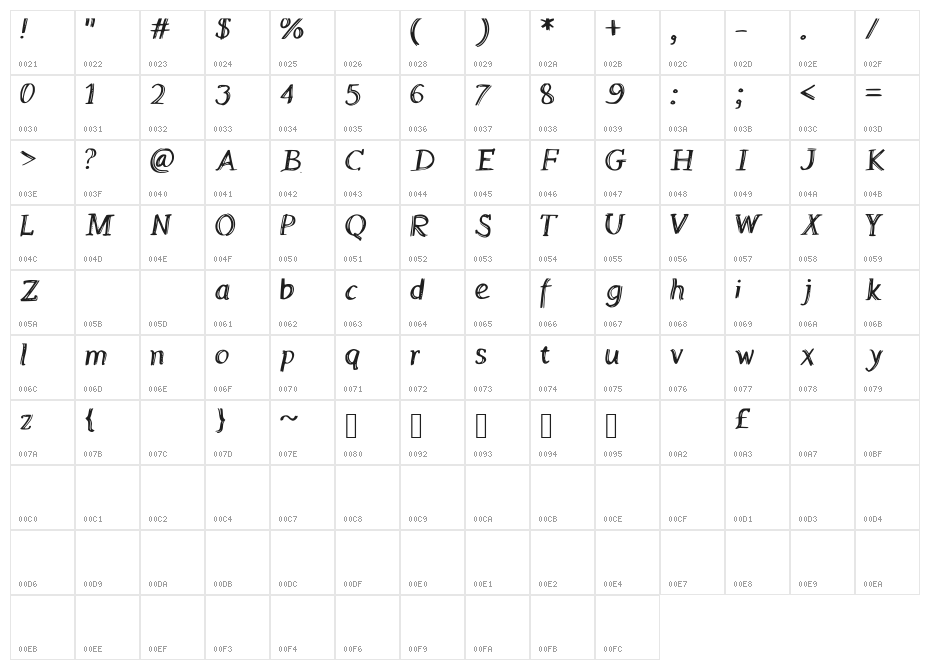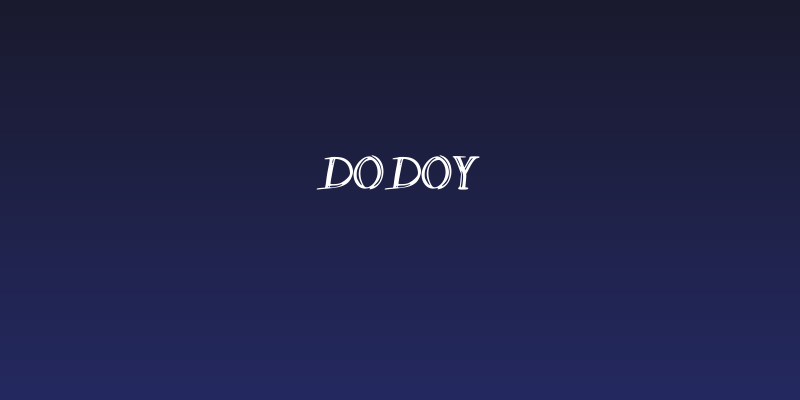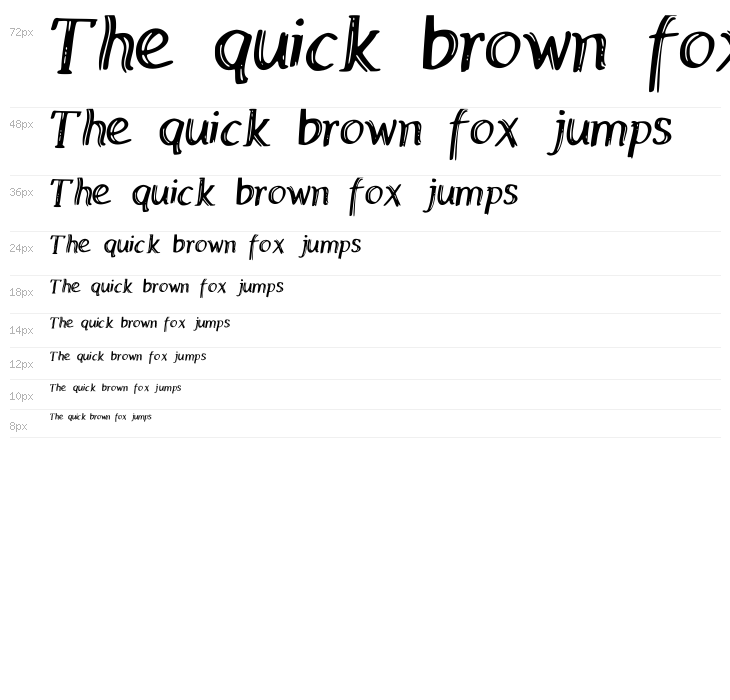
dodoy Font
dodoy Description
This font features a dynamic and energetic style with a handwritten appearance. The letters have a playful, slightly irregular form, giving them a lively and informal feel. The strokes are varied, with some letters exhibiting a brush-like texture that adds to the overall expressive quality. The uppercase and lowercase letters are well-balanced, maintaining a consistent flow throughout. Numbers and special characters follow the same stylistic approach, ensuring a cohesive look. This font is ideal for projects that require a personal touch, such as invitations, greeting cards, or creative branding.
| Proposed Projects | Ideal for invitations, greeting cards, creative branding, and personal projects. |